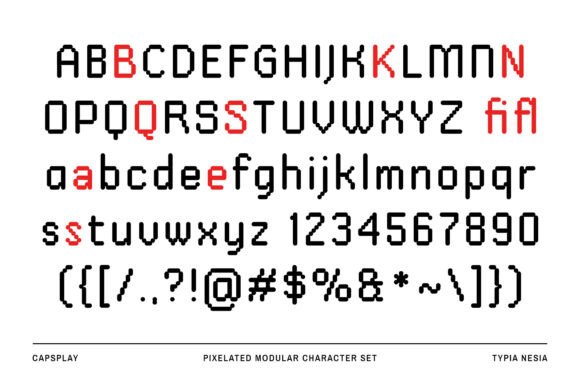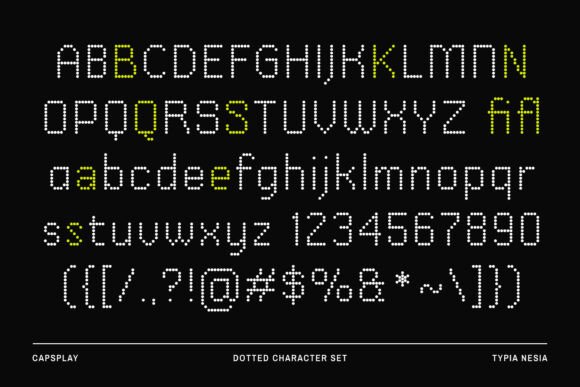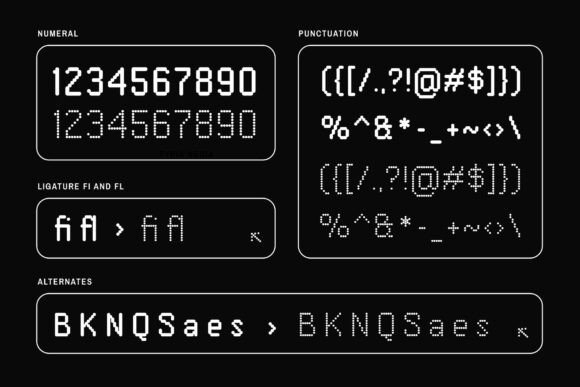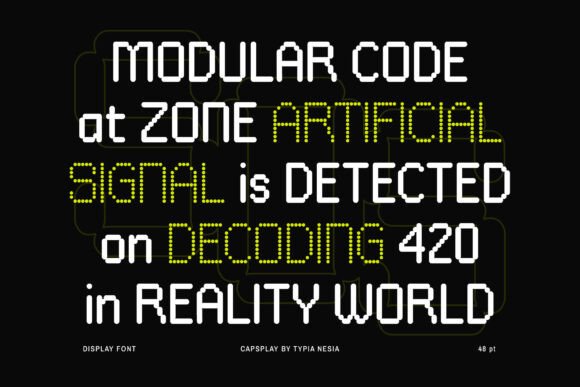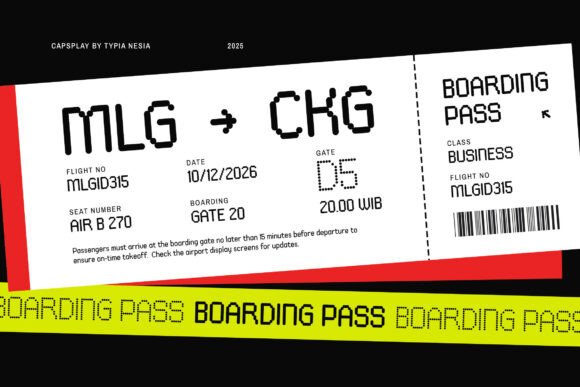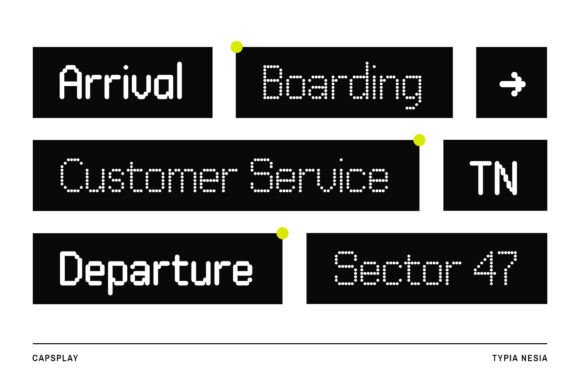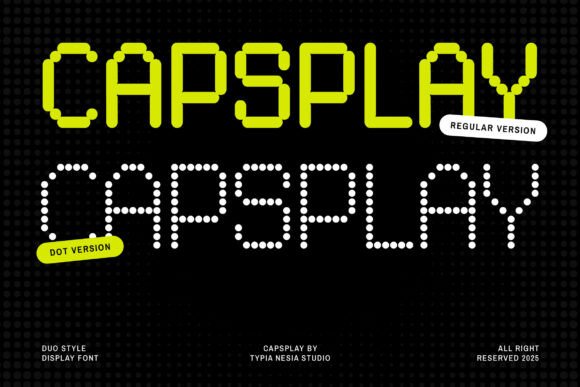
Discover the Retro-Futuristic Charm of Capsplay Font
Have you ever been in the middle of a design project, and suddenly, you’re struck by a wave of uncertainty? You know, that moment when you’re searching for the perfect font, and nothing seems quite right? I recently found myself in this exact situation while working on a retro-gaming-inspired branding project. My client wanted a font that captured the essence of old-school video games while still feeling modern and tech-savvy. That’s when I stumbled upon Capsplay Font, a dynamic duo-style display font that perfectly blends pixelated and modular design elements.
A Personal Review of Capsplay Font
What I Love About Capsplay Font
• ✨ Versatility: Capsplay comes in two distinct versions – a regular, blocky style and a unique dotted version. This duality offers incredible flexibility for various creative projects.
• ✅ Retro-Futuristic Aesthetic: Inspired by retro gaming and digital interfaces, Capsplay is ideal for modern tech branding, futuristic signage, arcade game graphics, and more.
• 🔍 Full Character Set: The font includes ligatures and alternates, ensuring your designs have the flexibility to stand out with a confident, high-tech personality.
While Capsplay Font is incredibly versatile and well-designed, there are a few minor considerations to keep in mind:
• ⚠️ Legibility at Small Sizes: Due to its pixelated nature, Capsplay may not be the best choice for body text or small font sizes. It’s primarily designed for headlines and display purposes.
• 🤔 Learning Curve for OpenType Features: While not difficult, it may take some time to get familiar with the OpenType features, glyphs, and stylistic alternates to fully leverage the font’s capabilities.
The Backstory Behind Capsplay Font
Capsplay Font was inspired by the golden age of video games and the futuristic visions of digital interfaces. The designer aimed to create a font that not only pays homage to the past but also looks towards the future of digital design. By combining the blocky, pixelated aesthetic of retro games with the sleekness of modern digital typography, Capsplay was born – a font that’s both nostalgic and forward-thinking.
Q: What is Capsplay Font best used for?
A: Capsplay Font is best used for modern tech branding, futuristic signage, arcade game graphics, advertising campaigns, logo design, posters, and eye-catching headlines.
Q: Does Capsplay Font include OpenType features?
A: Yes, Capsplay Font includes a full character set with ligatures and alternates, offering extensive OpenType features for added design flexibility.
Q: Is Capsplay suitable for body text?
A: Due to its pixelated nature, Capsplay is primarily designed for headlines and display purposes. It may not be the best choice for body text or small font sizes.